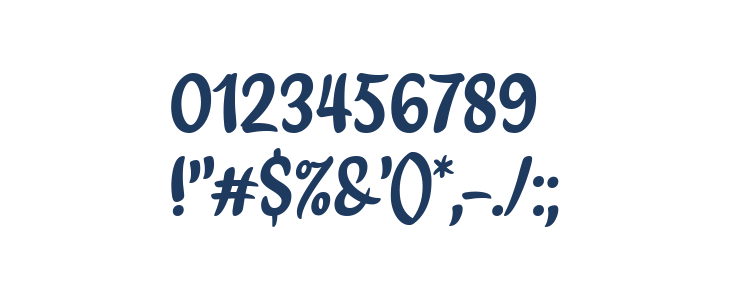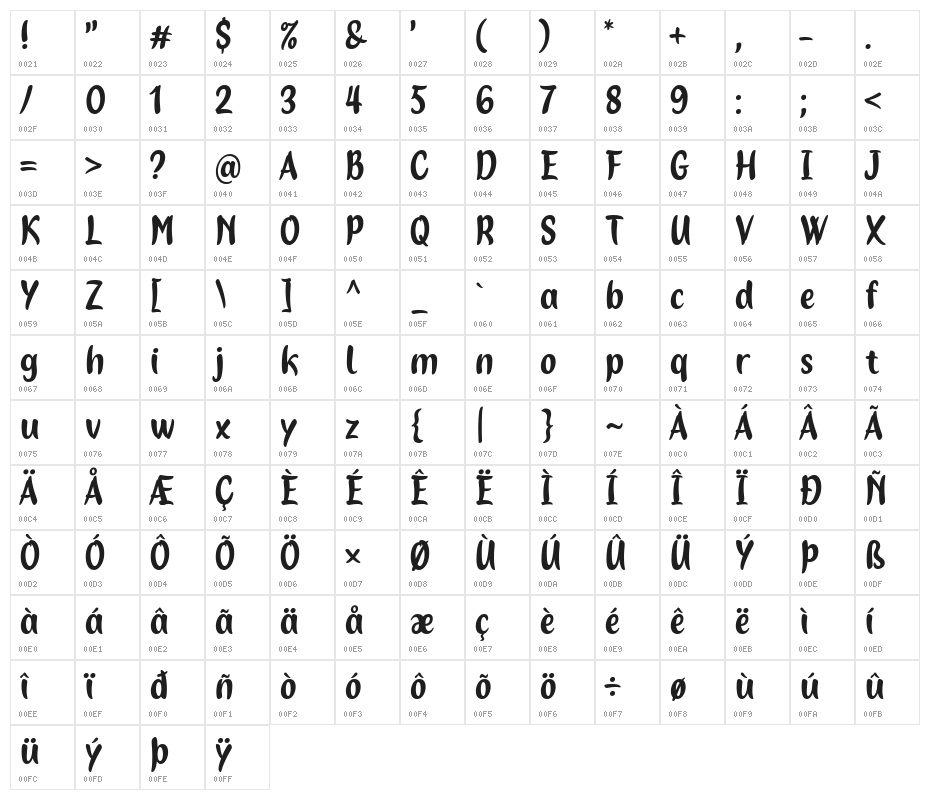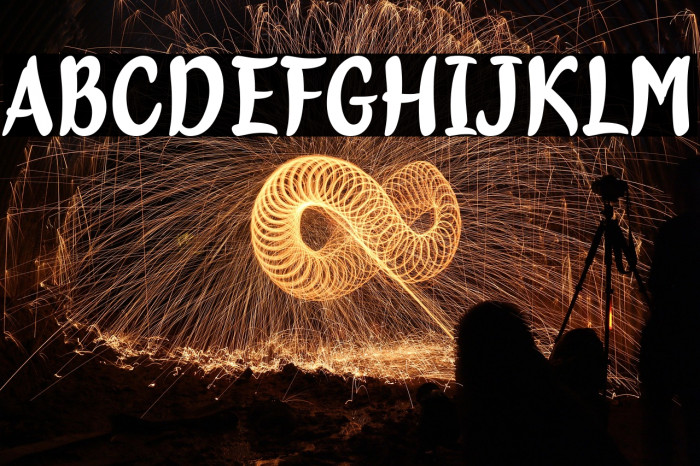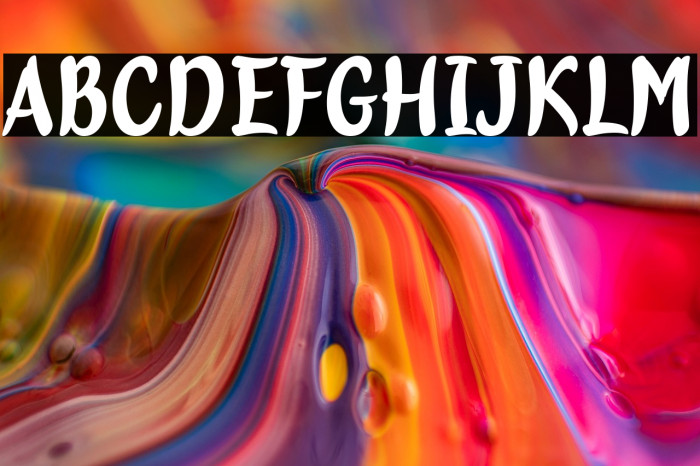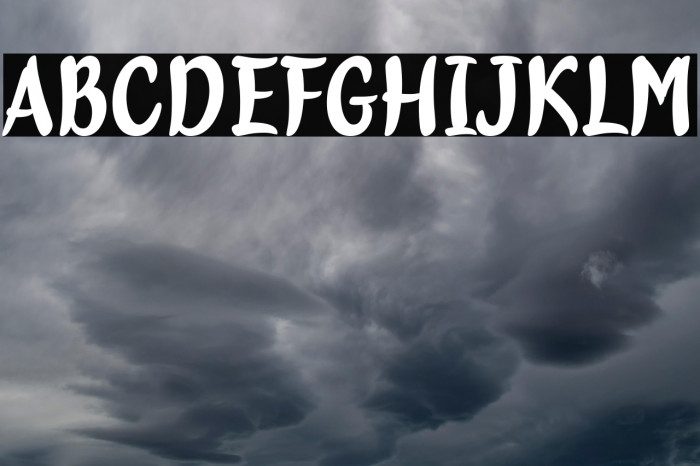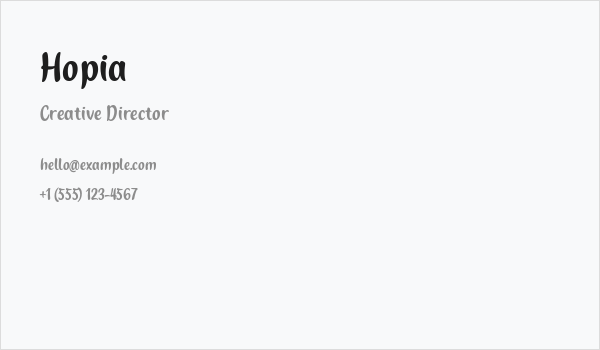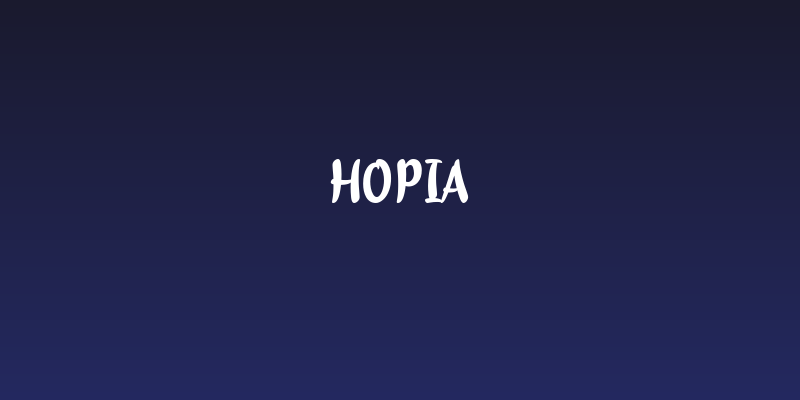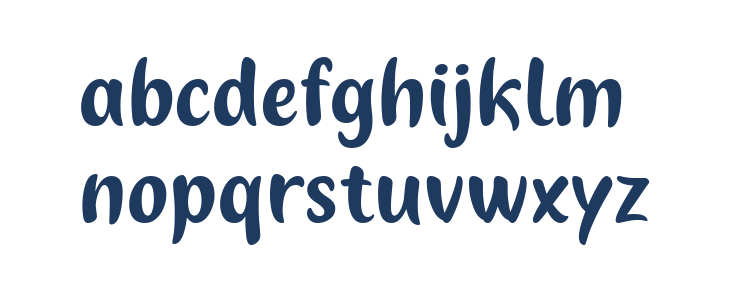
Hopia Font
Hopia Description
This font features a bold and playful style with a handwritten appearance. The letters are rounded and slightly irregular, giving it a casual and friendly feel. The uppercase and lowercase letters maintain a consistent flow, while the numbers and special characters complement the overall design. The strokes are thick, contributing to a strong visual presence, making it suitable for eye-catching designs. The font's unique character shapes and lively style make it stand out, perfect for projects that require a touch of personality and creativity.
| Proposed Projects | Ideal for children's books, playful branding, greeting cards, and creative posters. |